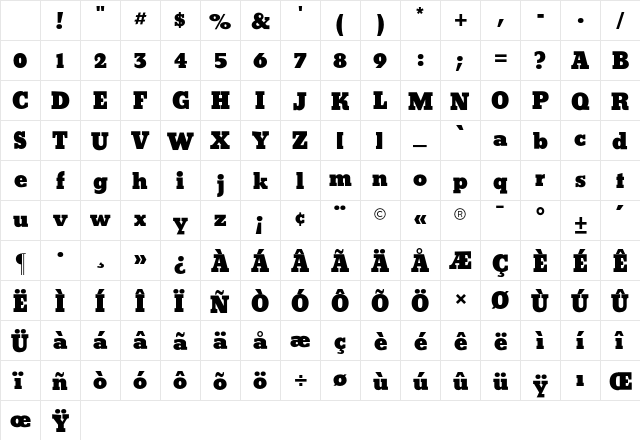
Complete Beton CG ExtraBold Regular glyph index. Displaying only characters natively supported by Beton CG ExtraBold Regular font.
Beton CG ExtraBold is a composed and adaptable typeface that performs quietly and consistently across a wide range of design contexts. Its bold stroke weight gives it real presence on the page.